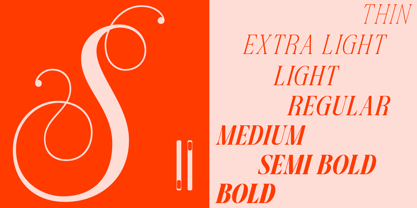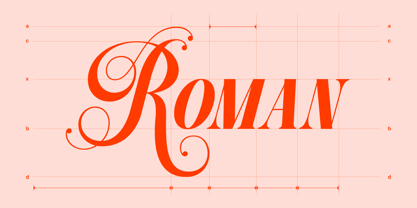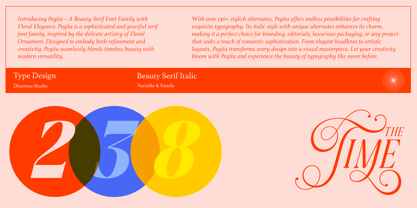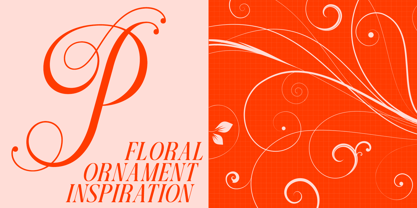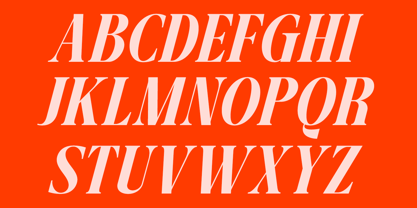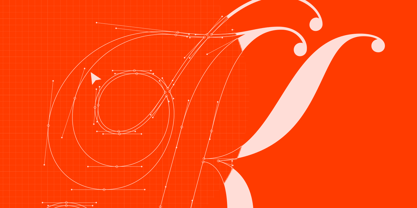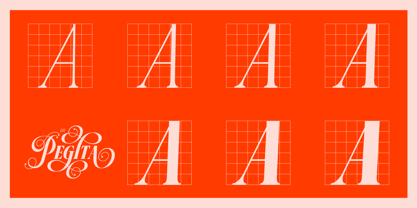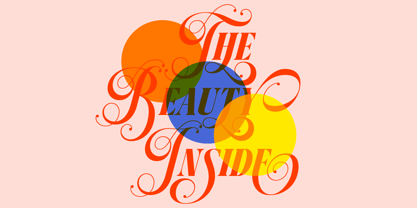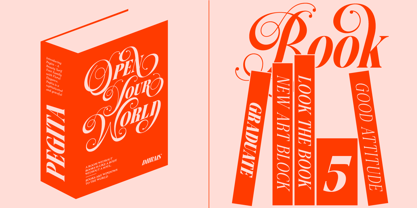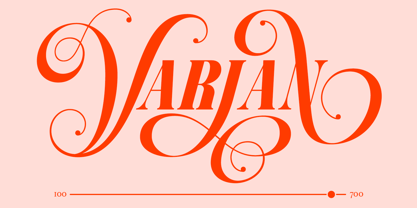
Dh Pegita
by Ahmad Jamaludin
Dh Pegita is a refined serif display font inspired by the delicate beauty of floral ornaments. Designed for both sophistication and modern charm, this typeface blends classic aesthetics with contemporary versatility, making it perfect for high-end design projects.
With 7 weights (Thin, Extra Light, Light, Regular, Medium, Semi Bold, Bold), Dh Pegita adapts effortlessly to various design needs. Whether for branding, editorial layouts, or event invitations, its elegant curves and fine details ensure a stunning visual impact.
Dh Pegita Font Features:
• 7 Weights: Thin, Extra Light, Light, Regular, Medium, Semi Bold, Bold
• 130+ Swash Alternates
• Letters, numbers, symbols, punctuation, special alternates